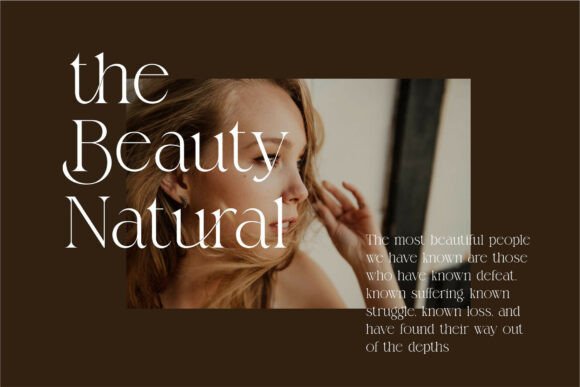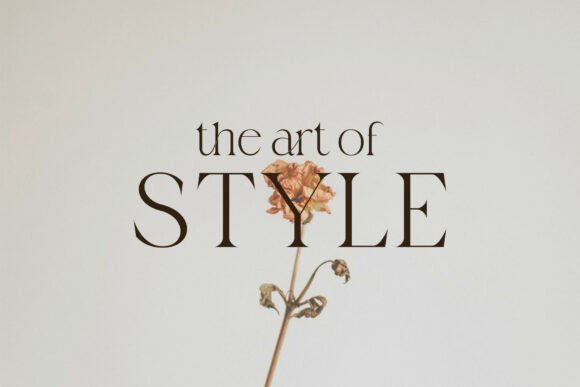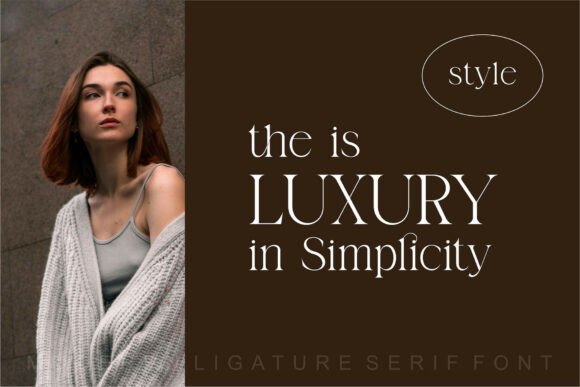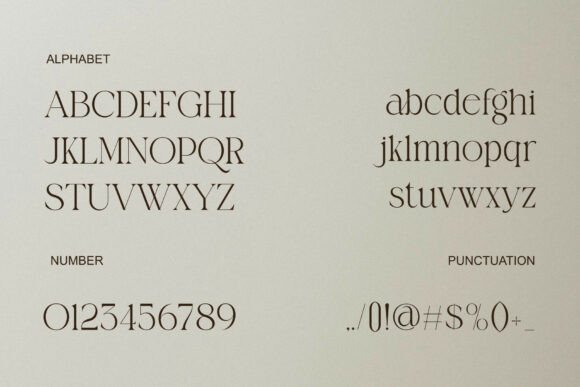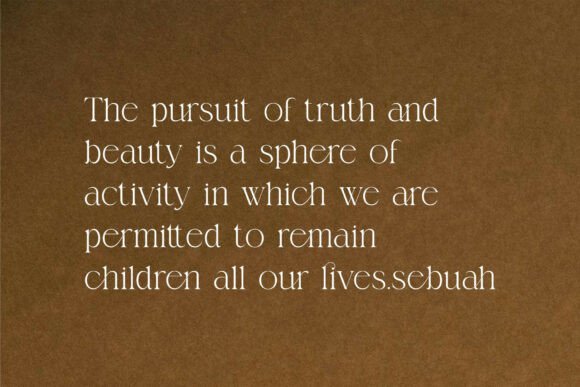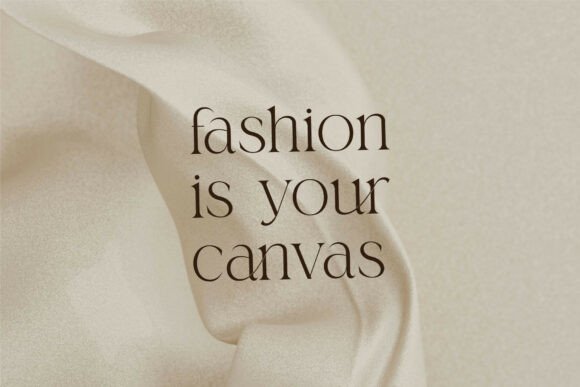
Introducing the Amanda Serif Family Font: Elevate Your Designs with Elegance and Sophistication
In the world of typography, a well-crafted font can make all the difference in creating a lasting impression. For designers and crafters seeking to elevate their branding and logo designs, the Amanda Serif Family font is a game-changer. This stylish and modern serif font is designed to bring a touch of elegance and sophistication to your projects, making it perfect for those who strive for classy and unique logos.
The Amanda Serif Family: A Fashionable and Modern Font
The Amanda Serif Family font is a versatile and contemporary serif font that boasts a range of weights, allowing designers to experiment with different styles and tones. Its fashionable and modern design ensures that your branding and logo designs will stand out from the crowd, exuding a sense of style and refinement. With its elegant lines and curves, this font is sure to captivate your audience and leave a lasting impression.
Sexy Stylish Extras: Taking Your Designs to the Next Level
What sets the Amanda Serif Family font apart is its collection of sexy stylish extras. These additional features allow designers to add a touch of personality and whimsy to their designs, making them truly one-of-a-kind. Whether you’re looking to create a bold statement or a subtle nuance, this font has got you covered. From elegant swashes to stylish ligatures, the Amanda Serif Family font offers a range of creative possibilities.
Perfect for Branding and Logo Design
When it comes to branding and logo design, the right font can make all the difference. The Amanda Serif Family font is specifically designed with branding and logo design in mind. Its classy and elegant aesthetic ensures that your designs will exude a sense of sophistication and refinement, making it perfect for businesses and individuals seeking to establish a strong visual identity.
Benefits of Using the Amanda Serif Family Font
- Unique and distinctive designs: With the Amanda Serif Family font, you can create logos and branding materials that stand out from the crowd.
- Elegant and sophisticated aesthetic: This font is perfect for businesses and individuals seeking to establish a refined and classy visual identity.
- Versatile and flexible: With a range of weights and stylish extras, the Amanda Serif Family font offers a range of creative possibilities.
- Perfect for branding and logo design: This font is specifically designed with branding and logo design in mind, making it an ideal choice for designers and crafters.
In conclusion, the Amanda Serif Family font is a stylish and modern serif font that is perfect for designers and crafters seeking to elevate their branding and logo designs. With its elegant lines, curves, and sexy stylish extras, this font offers a range of creative possibilities. Whether you’re looking to create a bold statement or a subtle nuance, the Amanda Serif Family font is sure to impress. So why wait? Download the Amanda Serif Family font today and take your designs to the next level.
- Modern and elegant serif font
- Range of weights
- Sexy stylish extras
- Perfect for branding and logo design
- Unique and distinctive designs